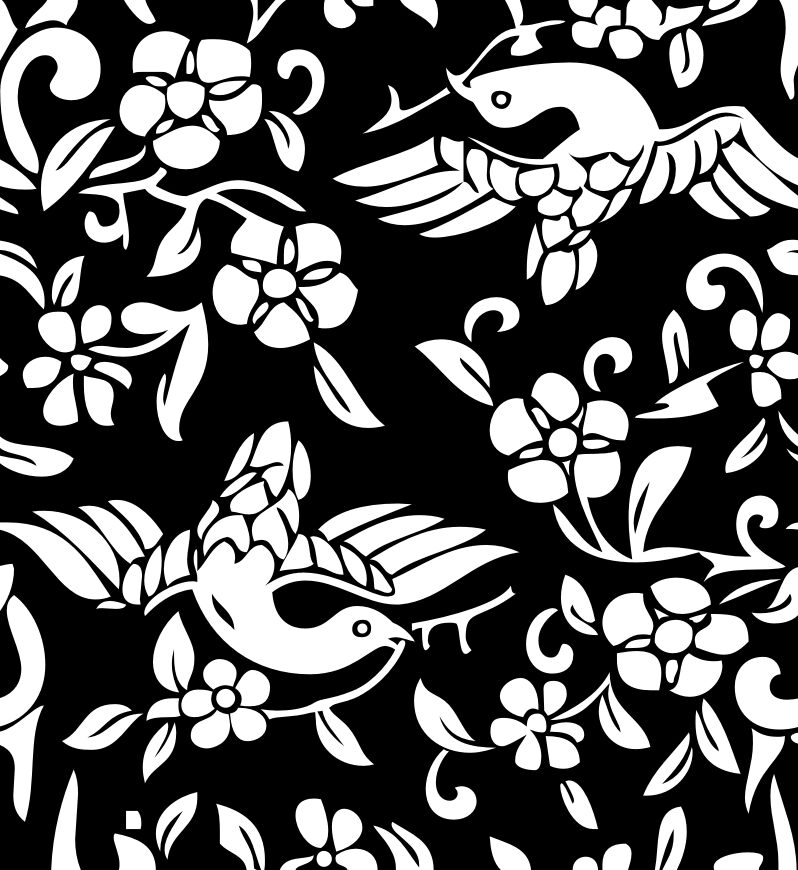
Typestry
Typestry is a simple play with patterns, to create a texture while typing. The font includes the basic Latin characters transformed into graphics, so there is actually a single glyph that repeats itself. This should be some sort of record of how small a font can get, still with a huge effect.
The line height and the letter spacing was adjusted so the graphic would align as close as possible and create a pattern without grids or any visible spaces. A paragraph probably should be aligned to left or right, or type an equal number of letters on each line, to tile the patterns on top of each other. Otherwise it works well on every direction. The line height is set to 1.2, so if there's any gap between the lines, this should be adjusted.
The initial design is an old wallpaper, printed on a fabric, reproduced here in a digital format. Always a fan of wallpapers, but a bit afraid of clustered designs, now happy that this is available at a keystroke.